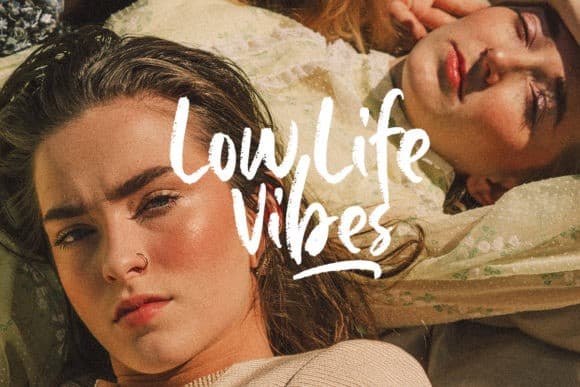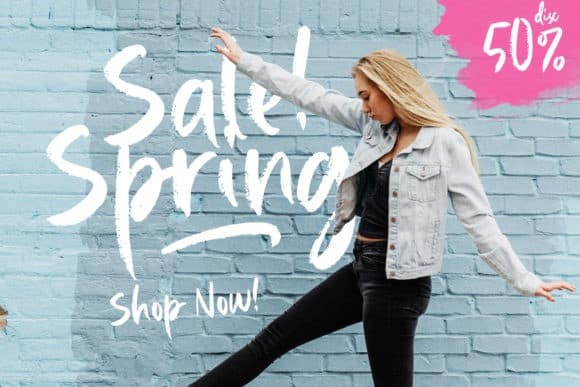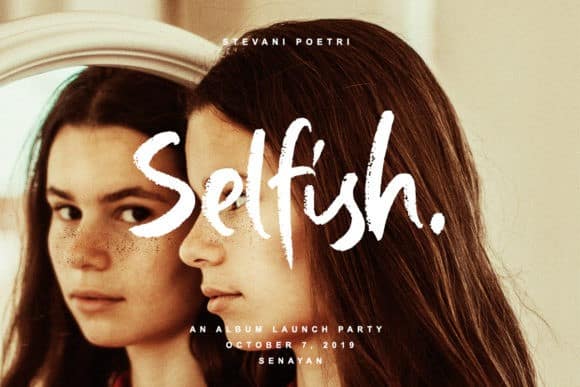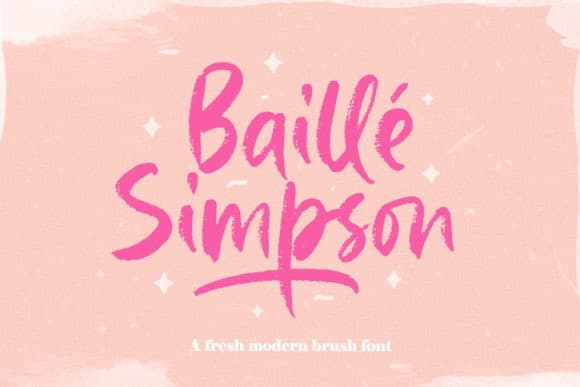
Baille Simpson Brush Font
Hi everyone, Glad to introduce you a new Baille Simpson Brush Font– Handwritten typeface with less texture. Made from font designer named Letterhend. This typeface is a stylish and incredibly elegant script font. It looks stunning on wedding invitations, thank you cards, quotes, greeting cards, logos, business cards and every other design which needs a handwritten touch.